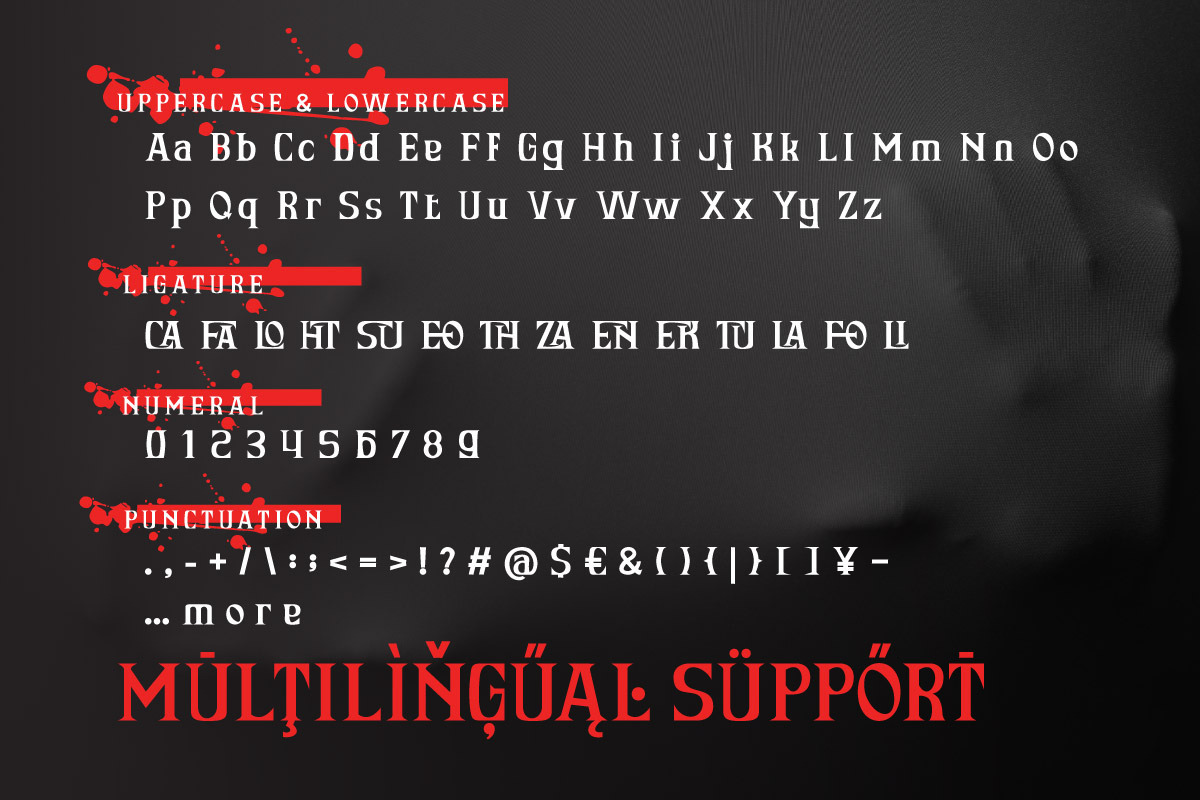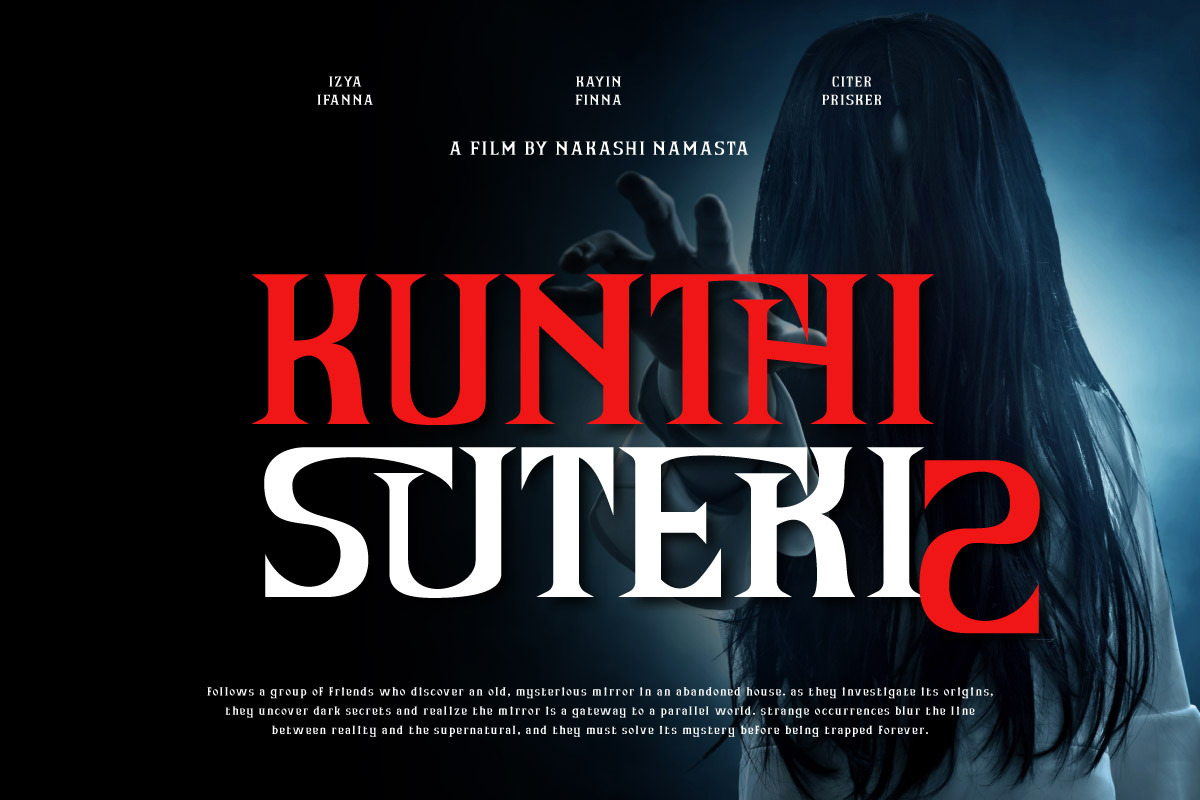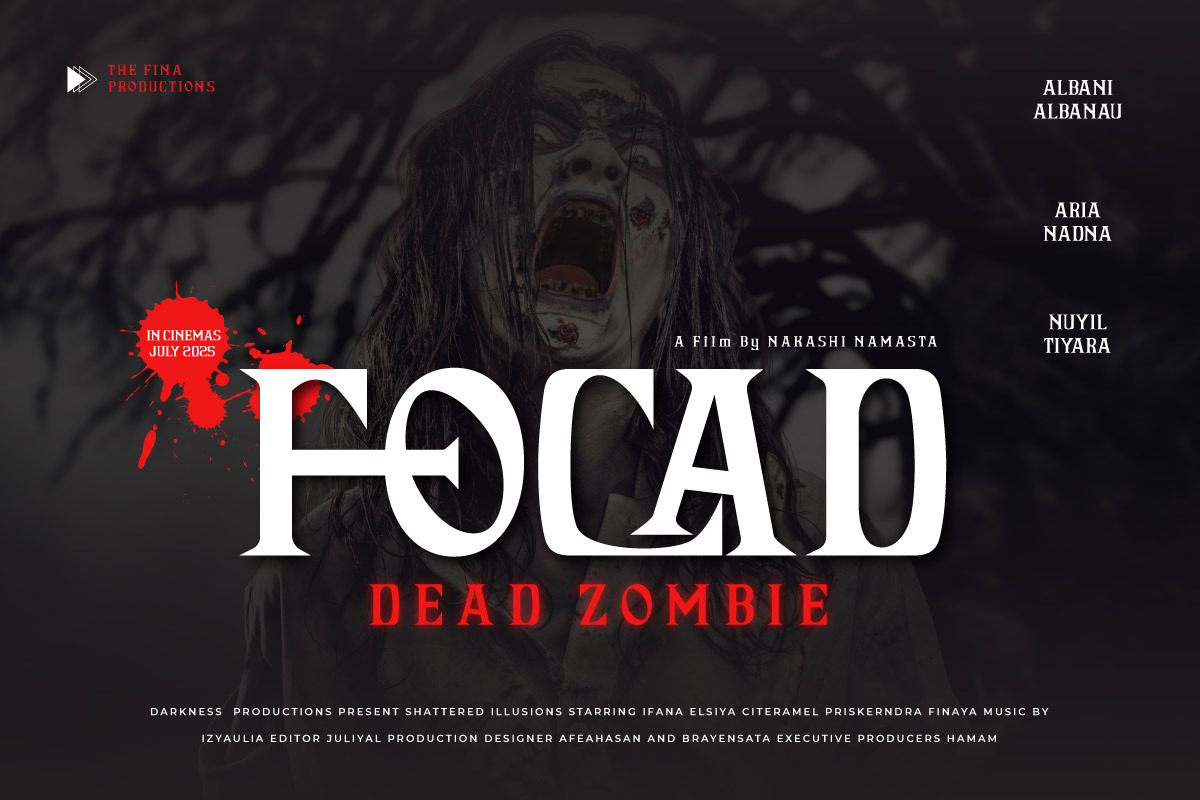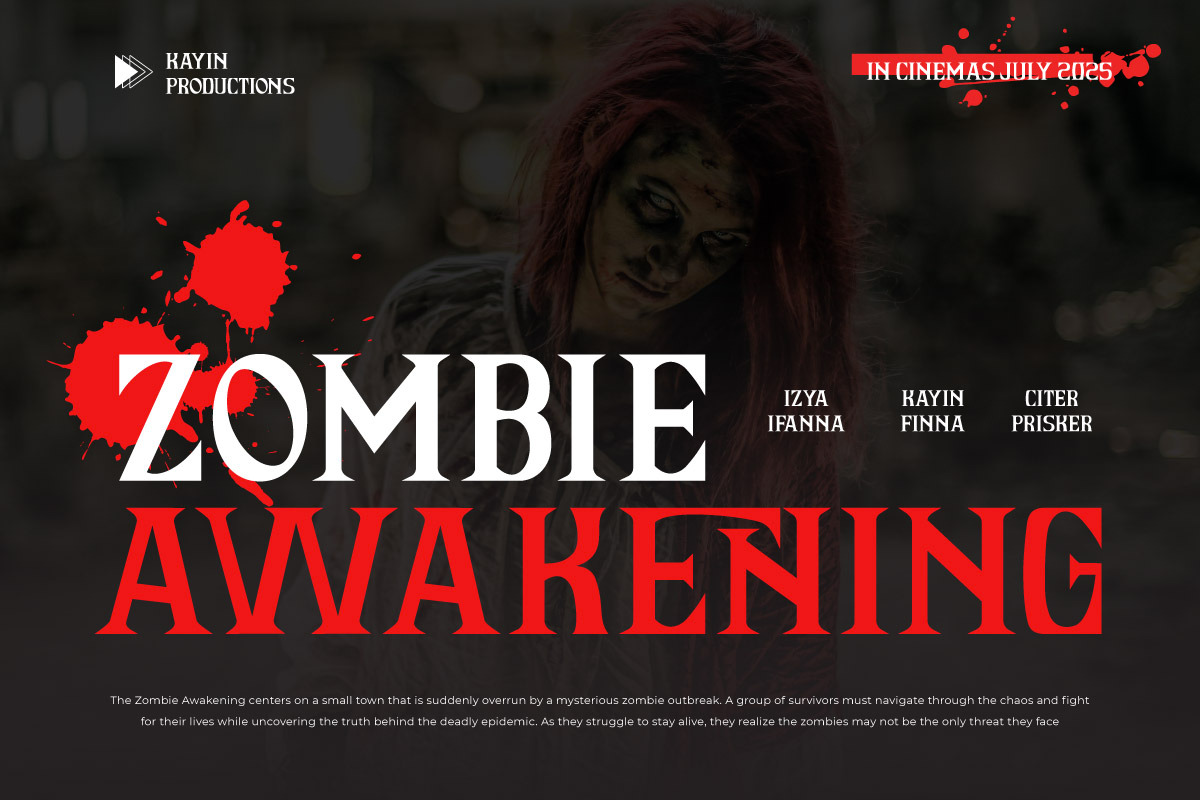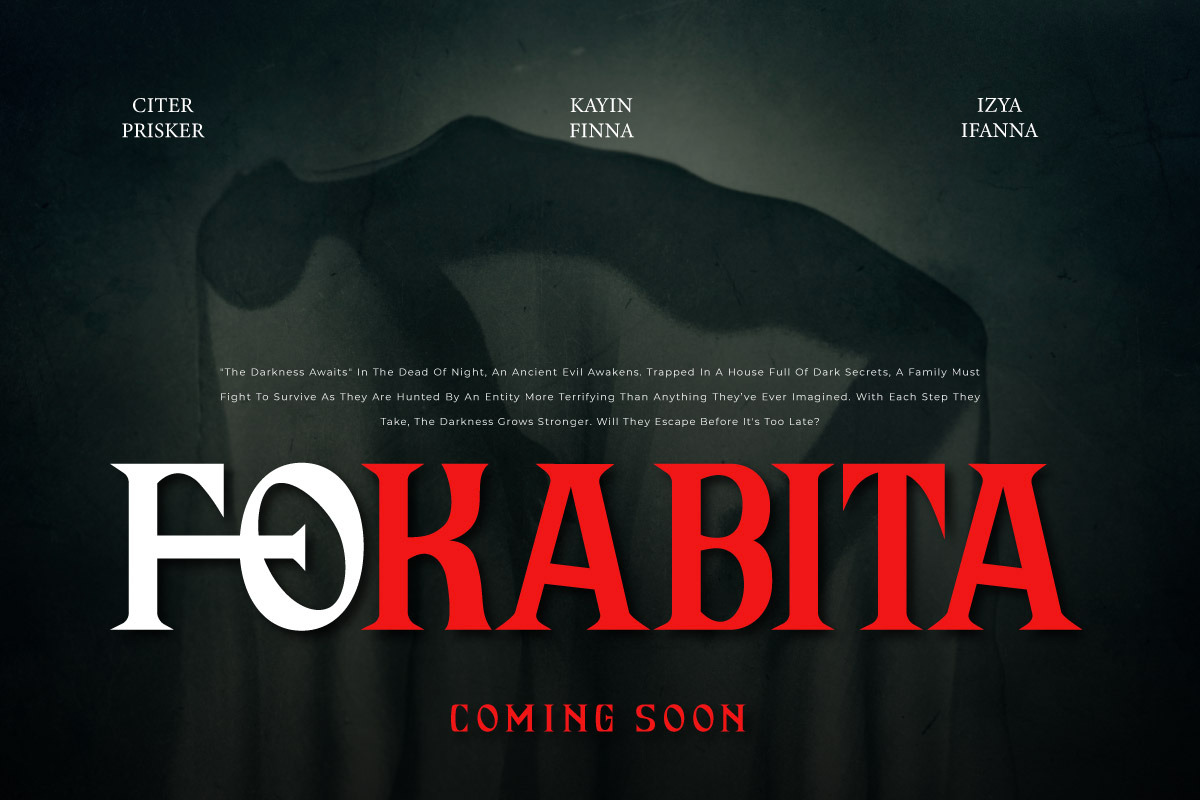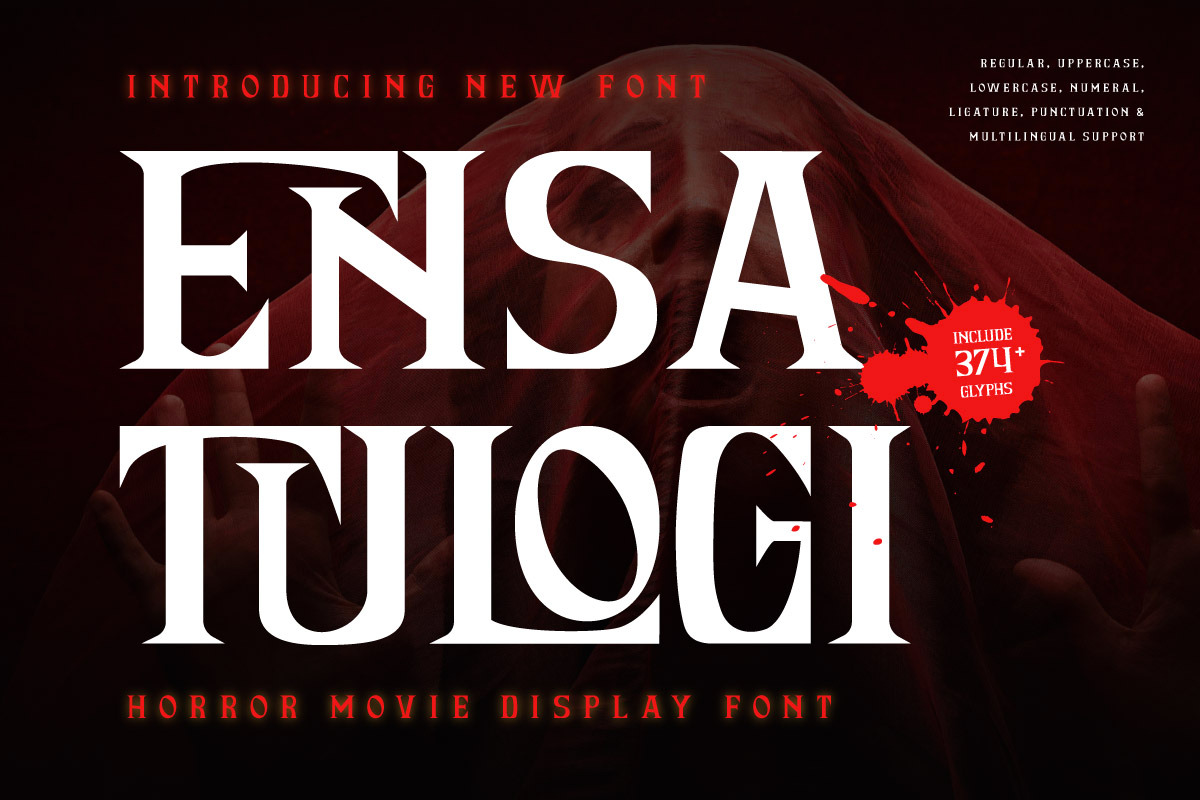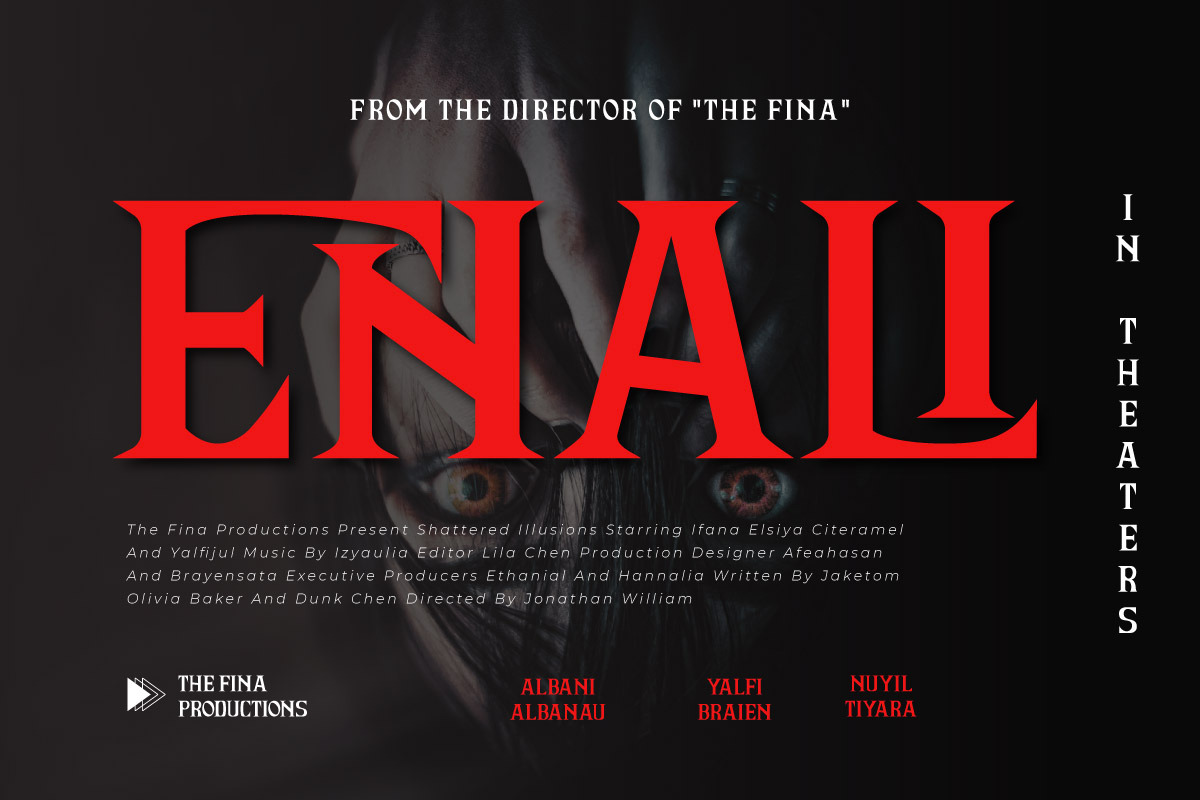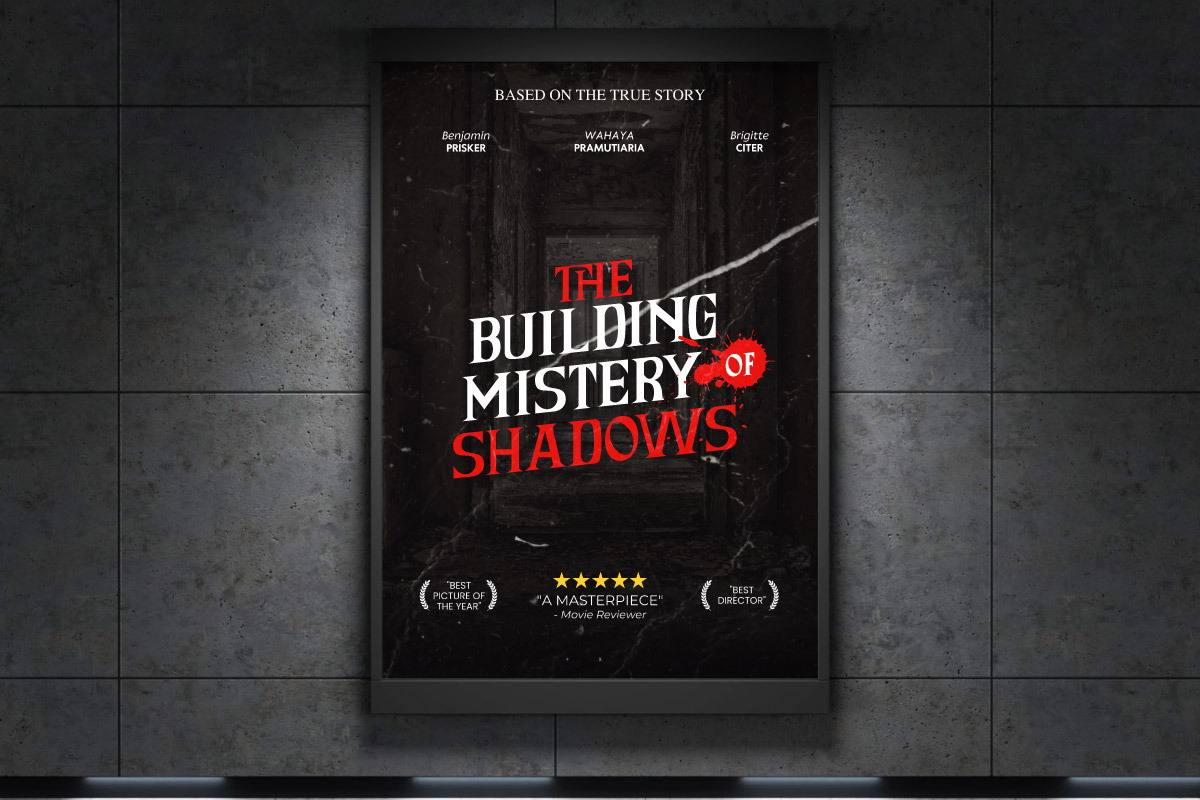
Ensatulogi - Display Horror Font
Ensatulogi is a bone-chilling horror display font designed to instill fear and mystery in any project. With its sharp, pointed edges and jagged letterforms, this typeface captures the essence of darkness, making it ideal for horror movie titles, eerie book covers, haunted house posters, Halloween-themed designs, and dark branding.
Inspired by classic horror aesthetics and gothic typography, Ensatulogi’s razor-sharp details and menacing strokes create an intense and unsettling visual experience. Each letter feels like a sinister whisper from the shadows, perfect for amplifying the suspense and thrill in your designs.
If you're looking for a font that embodies terror, suspense, and fear, Ensatulogi is the perfect choice. Give your designs a menacing and unforgettable horror-themed touch with this uniquely crafted typeface!
- Fonts include Multilingual: Support for 85 languages. Afrikaans, Albanian, Asu, Basque, Bemba, Bena, Breton, Catalan, Chiga, Cornish, Croatian, Czech, Danish, Dutch, Embu, English, Esperanto, Estonian, Filipino, Finnish, French, Friulian, Galician, Gusii, Hungarian, Indonesian, Irish, Italian, Kabuverdianu, Kalenjin, Kamba, Kikuyu, Kinyarwanda, Latvian, Lithuanian, Lower, Sorbian, Luo, Luxembourgish, Luyia, Machame, Makhuwa-Meetto, Makonde, Malagasy, Maltese, Manx, Meru, Morisyen, North, Ndebele, Norwegian Bokmål, Norwegian Nynorsk, Nyankole, Oromo, Polish, Portuguese, Quechua, Romanian, Romansh, Rombo, Rundi, Rwa, Samburu, Sango, Sangu, Scottish, Gaelic, Sena, Serbian, Shambala, Shona, Slovak, Slovenian, Soga, Somali, Spanish, Swahili, Swedish, Swiss German, Taita, Teso, Turkish, Upper Sorbian, Uzbek (Latin), Volapük, Vunjo, Walser, Zulu.